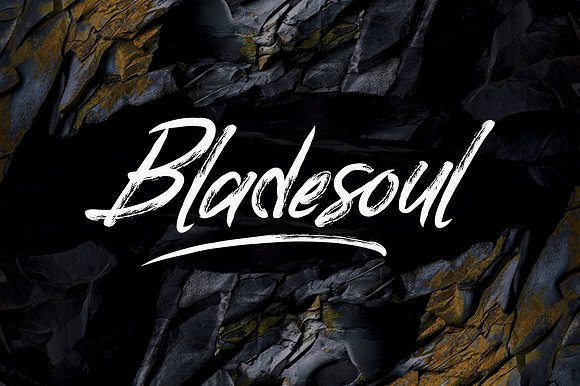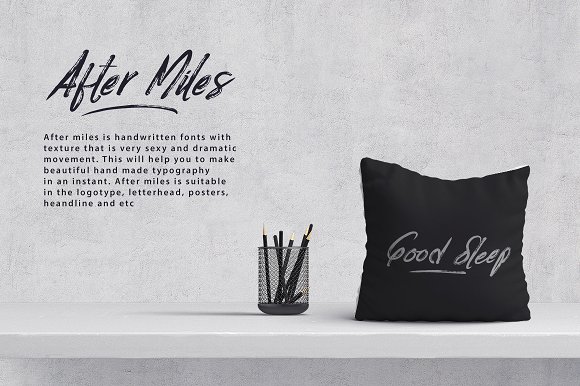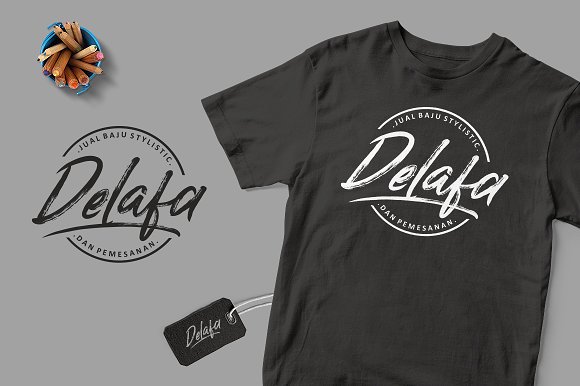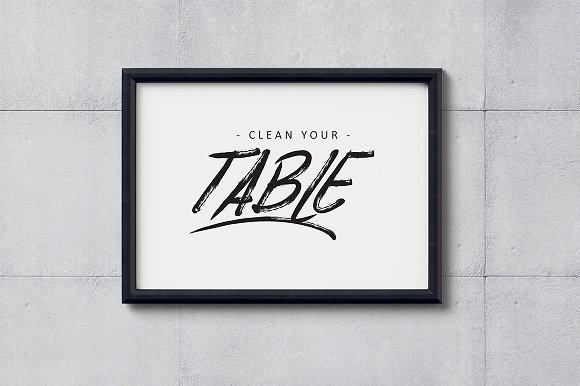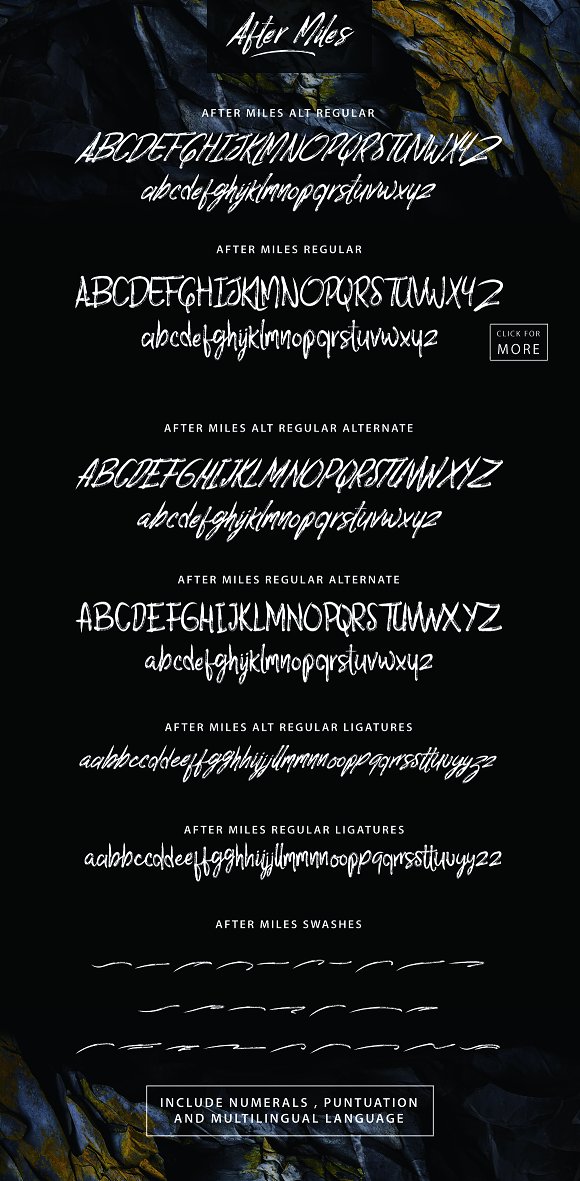
After Miles Brush Font
After Miles is a handwritten script font . Very cool for branding, poster, logo, and any other artworks. Using After Miles will be better if we play the stylistics alternate and combining it with swashes packs.
| Classification: | Brush Fonts, Script Fonts |